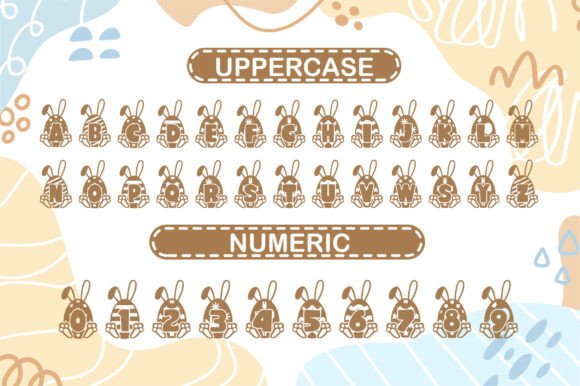
Cute Easter Egg Font: Add a Touch of Whimsy to Your Easter Designs
Are you looking for a fun and playful font to make your Easter designs stand out? Look no further than the Cute Easter Egg Font! This delightful font is perfect for adding a touch of whimsy to your Easter-themed projects, and its cute and cheerful design is sure to delight kids and adults alike.
What Makes the Happy Easter Font So Special?
The Happy Easter font is a unique and charming font that is specifically designed for Easter and kids. Its playful and cheerful design makes it perfect for a wide range of design projects, from posters and t-shirts to mugs and home decor. The font features both English letters and numbers, giving you endless possibilities for creative expression.
One of the best things about the Cute Easter Egg Font is its versatility. This font can be used for any design project you can imagine, including:
- Posters: Create eye-catching Easter posters with cute and colorful graphics.
- T-shirts: Design fun and playful Easter t-shirts for kids and adults.
- Mugs: Add a touch of Easter cheer to your coffee mugs with a cute Easter design.
- Kid’s projects: Use the font to create fun and educational Easter-themed projects for kids.
- Planners: Add a touch of whimsy to your Easter planners with cute graphics and designs.
- Stickers: Create adorable Easter stickers to decorate your projects.
- Home decor: Use the font to create cute Easter-themed home decor items, such as Easter egg decorations and bunny-themed signs.
Why Choose the Cute Easter Egg Font?
There are many reasons why the Cute Easter Egg Font is a great choice for your Easter designs. Here are just a few:
- Cute and playful design: The font features a cute and playful design that is sure to delight kids and adults alike.
- Versatile: The font can be used for a wide range of design projects, from posters and t-shirts to mugs and home decor.
- English letters and numbers: The font features both English letters and numbers, giving you endless possibilities for creative expression.
Tips for Using the Happy Easter Font
Here are a few tips for using the Cute Easter Egg Font in your designs:
- Experiment with colors: The font looks great in bright and pastel colors, so don’t be afraid to experiment with different color schemes.
- Add graphics and images: Use the font in combination with cute Easter graphics and images to create adorable designs.
- Keep it simple: Don’t overcomplicate your design. Keep it simple and let the font do the talking.
| Font Name | Cute Easter Egg Font |
| Author | LAKLAIShop |
The Cute Easter Egg Font is a fun and playful font that is perfect for adding a touch of whimsy to your Easter designs. Its cute and cheerful design makes it perfect for a wide range of design projects, from posters and t-shirts to mugs and home decor. With its versatility, ease of use, and cute design, this font is a great choice for designers of all skill levels. So why not give it a try and see what amazing Easter designs you can create?